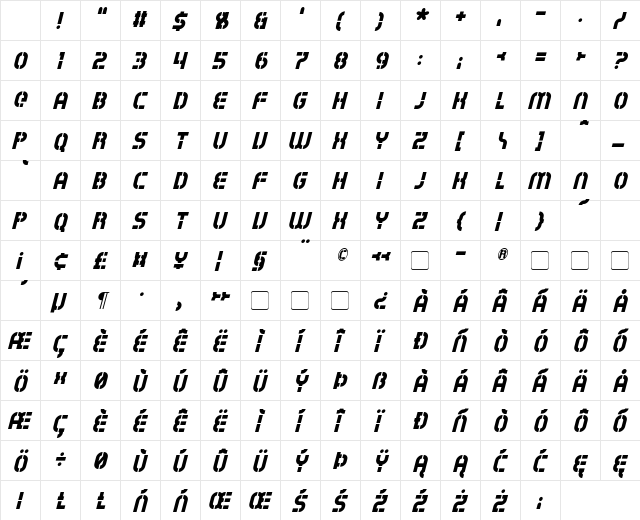
Complete Exostencil Italic glyph index. Displaying only characters natively supported by Exostencil Italic font.
Exostencil borrows the utilitarian aesthetic of stencil lettering, with its characteristic cutaways and no-frills construction lending an industrial edge. The slanted form adds forward momentum and visual energy.
Pro Tip: Use Exostencil at large sizes on packaging, posters, or apparel where the stencil cutaways read clearly. Avoid small sizes where those gaps become visual noise.